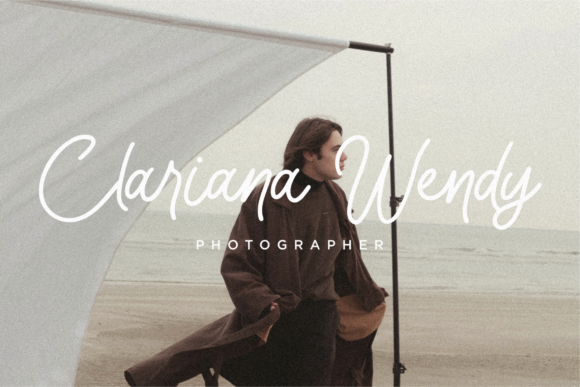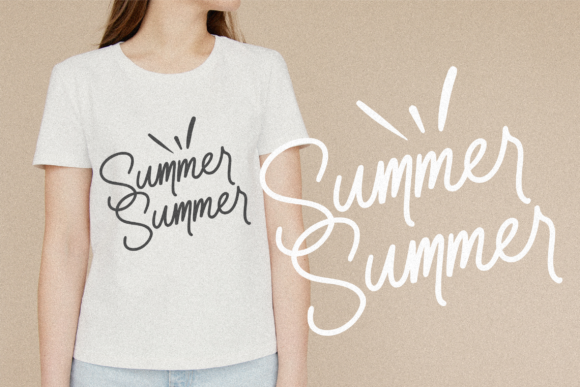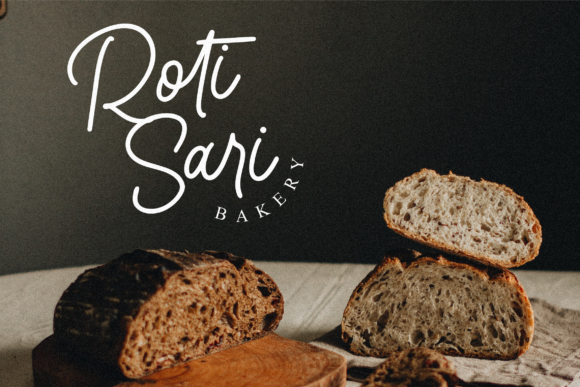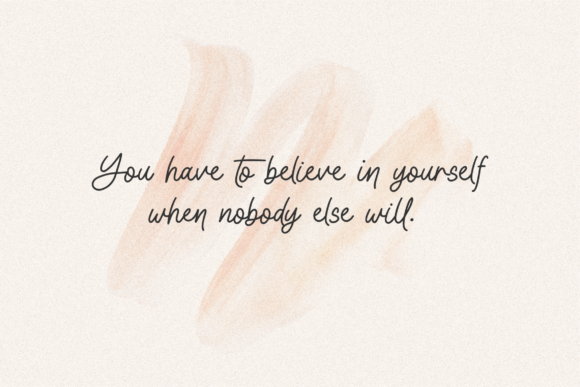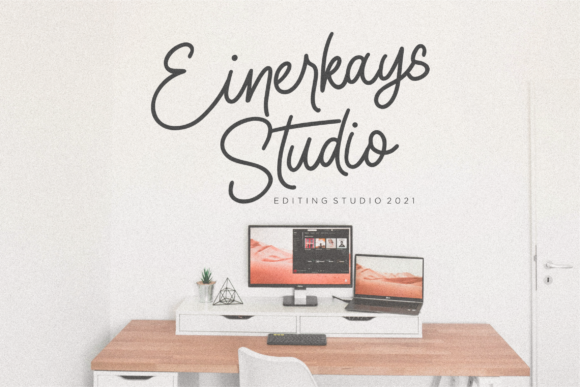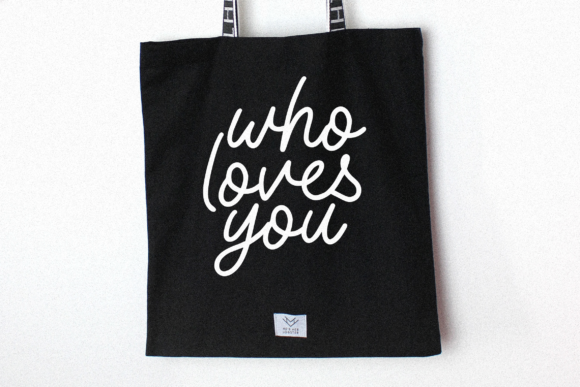
Discover the Charm of Earhtroline Font: A Versatile Script Font for Creative Projects
Are you a designer, crafter, or DIY enthusiast looking for a unique and captivating font to elevate your creative projects? Look no further than Earhtroline Font, an enchanting handwritten script font that is sure to mesmerize your audience. With its elegant and flowing strokes, Earhtroline is perfect for a wide range of applications, from greeting cards and invitations to headlines and titles.
What Makes Earhtroline Font So Special?
Earhtroline Font is a versatile script font that boasts a wide spectrum of applications, making it an ideal choice for designers and crafters. Its unique and enchanting handwritten style is sure to add a touch of personality and whimsy to any project. Whether you’re creating a romantic greeting card, a stylish invitation, or a bold headline, Earhtroline Font is the perfect choice.
One of the standout features of Earhtroline Font is its PUA (Private Use Area) encoding. This means that you can access all of the glyphs and swashes with ease, giving you complete creative control over your project. With PUA encoding, you can effortlessly navigate through the font’s extensive character set, including alternative letters, ligatures, and swashes, to create stunning and one-of-a-kind designs.
The Benefits of Using Earhtroline Font
So, why choose Earhtroline Font for your next project? Here are just a few benefits of using this enchanting script font:
- Unique and Eye-Catching: Earhtroline Font is a one-of-a-kind script font that is sure to grab attention and leave a lasting impression.
- Versatile: With its elegant and flowing strokes, Earhtroline Font can be used for a wide range of applications, from formal to informal projects.
- Easy to Use: Earhtroline Font is PUA encoded, making it easy to access all of the glyphs and swashes.
- Perfect for DIY Projects: Earhtroline Font is ideal for crafters and DIY enthusiasts who want to add a personal touch to their projects.
How to Use Earhtroline Font in Your Projects
Using Earhtroline Font in your projects is easy and straightforward. Here are a few tips to get you started:
- Pair it with Other Fonts: Combine Earhtroline Font with other fonts to create a unique and visually appealing design.
- Experiment with Swashes: Use the font’s extensive swash collection to add a touch of elegance and sophistication to your design.
- Play with Colors: Experiment with different colors and textures to add depth and interest to your design.
Who Can Benefit from Earhtroline Font?
Earhtroline Font is perfect for a wide range of designers, crafters, and DIY enthusiasts, including:
- Graphic Designers: Use Earhtroline Font to create stunning logos, brochures, and marketing materials.
- Crafters: Add a personal touch to your DIY projects, such as greeting cards, invitations, and scrapbook pages.
- Stationery Designers: Create beautiful and unique stationery sets, including notecards, journals, and letterheads.
In conclusion, Earhtroline Font is a versatile and enchanting script font that is perfect for designers, crafters, and DIY enthusiasts. With its elegant and flowing strokes, PUA encoding, and extensive character set, Earhtroline Font is sure to elevate your creative projects and leave a lasting impression on your audience. So why wait? Discover the charm of Earhtroline Font today and take your designs to the next level!